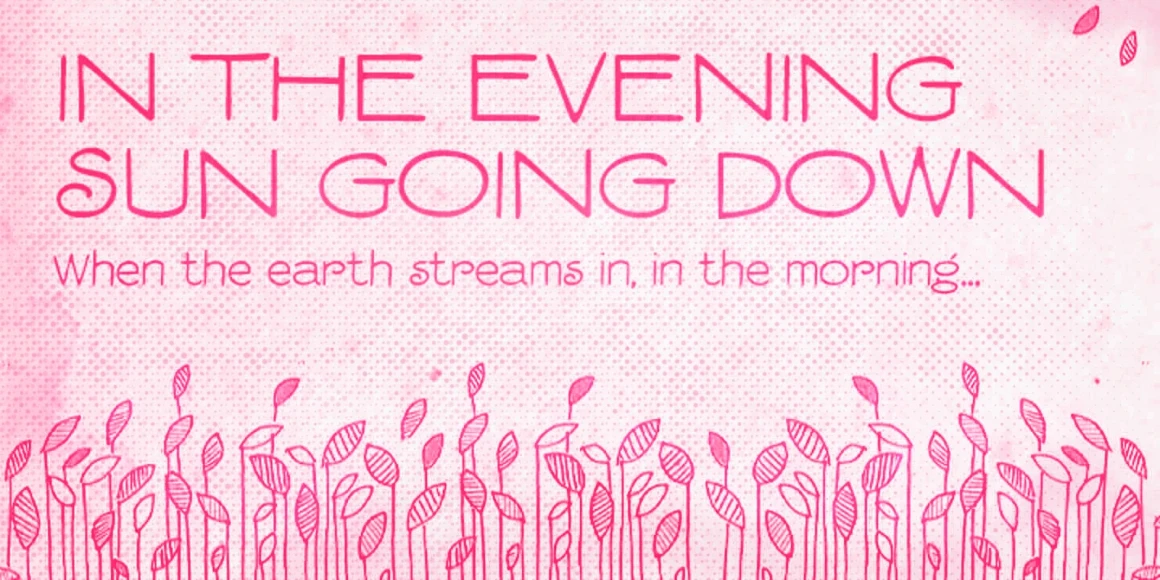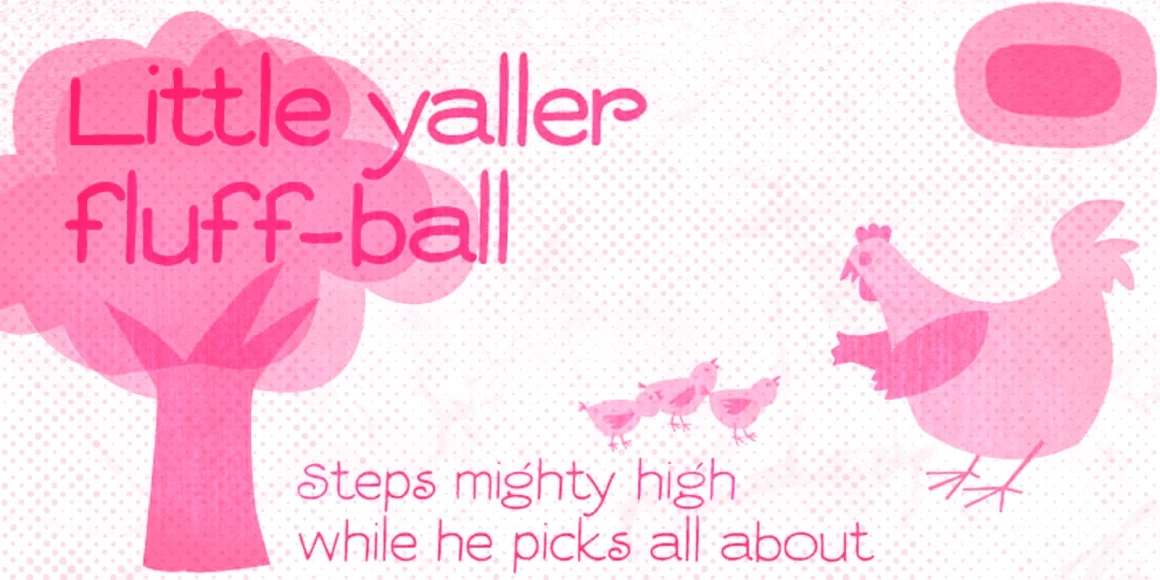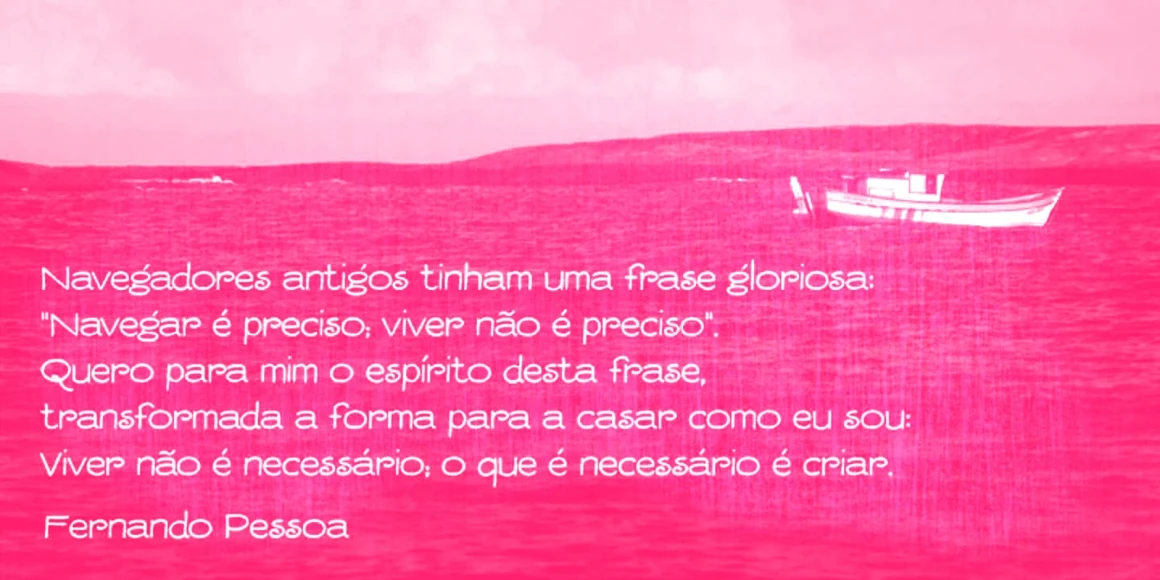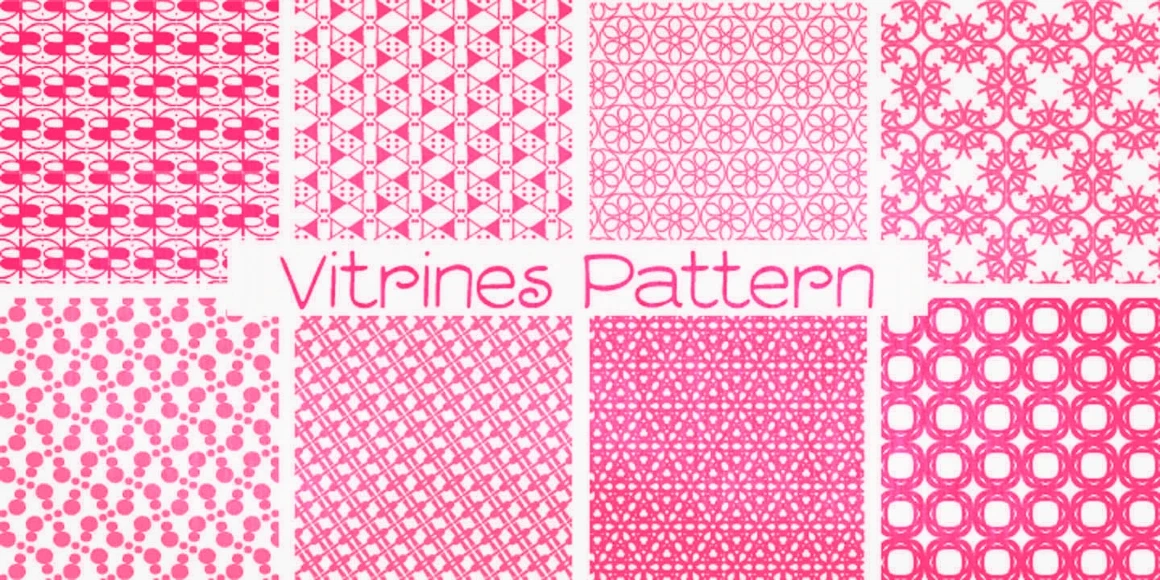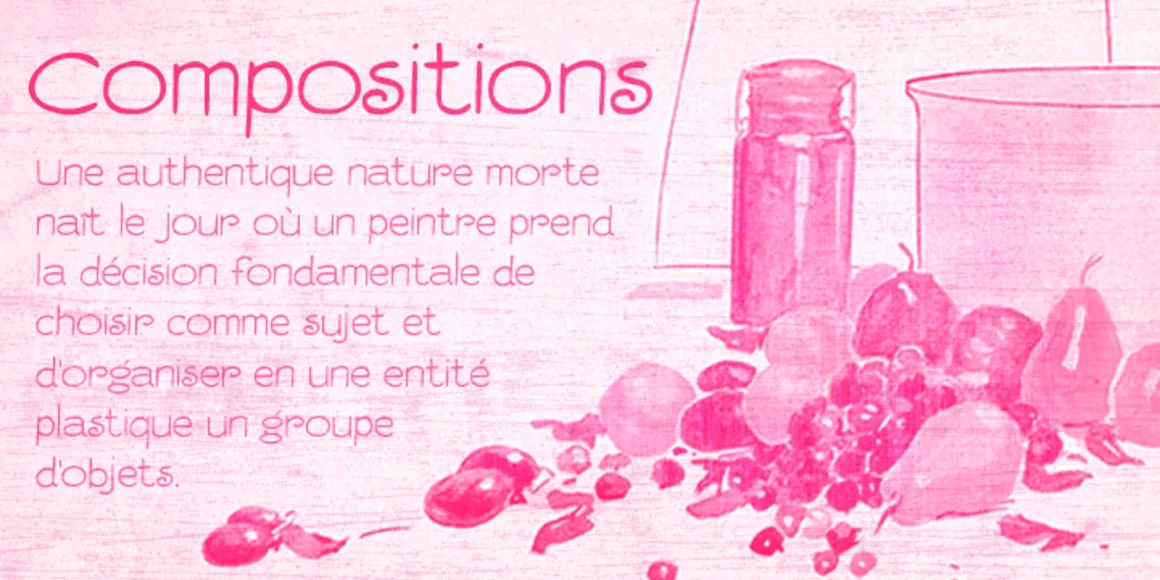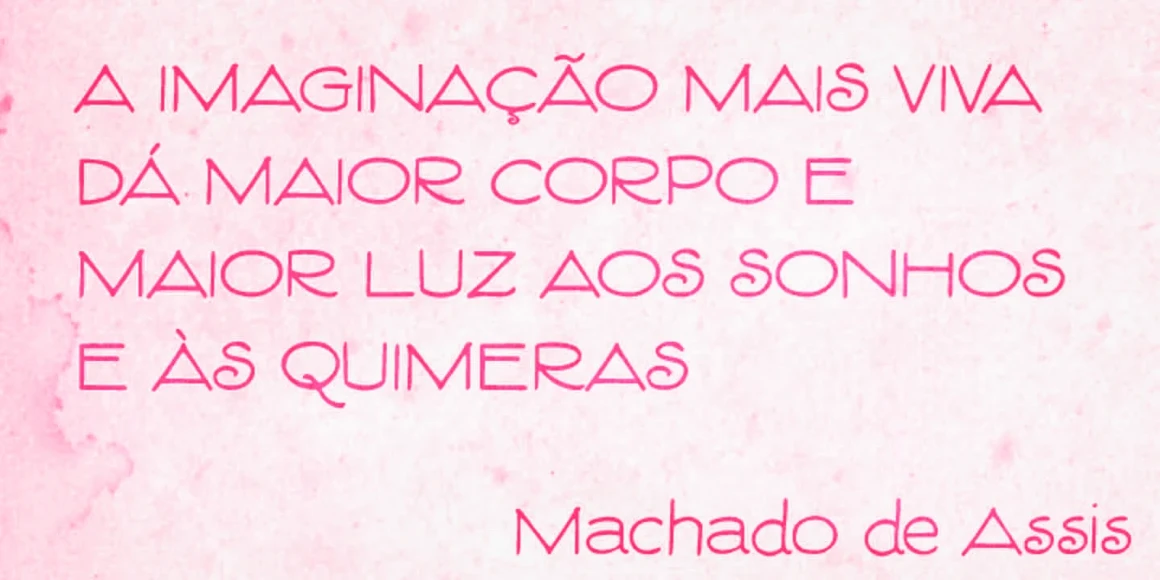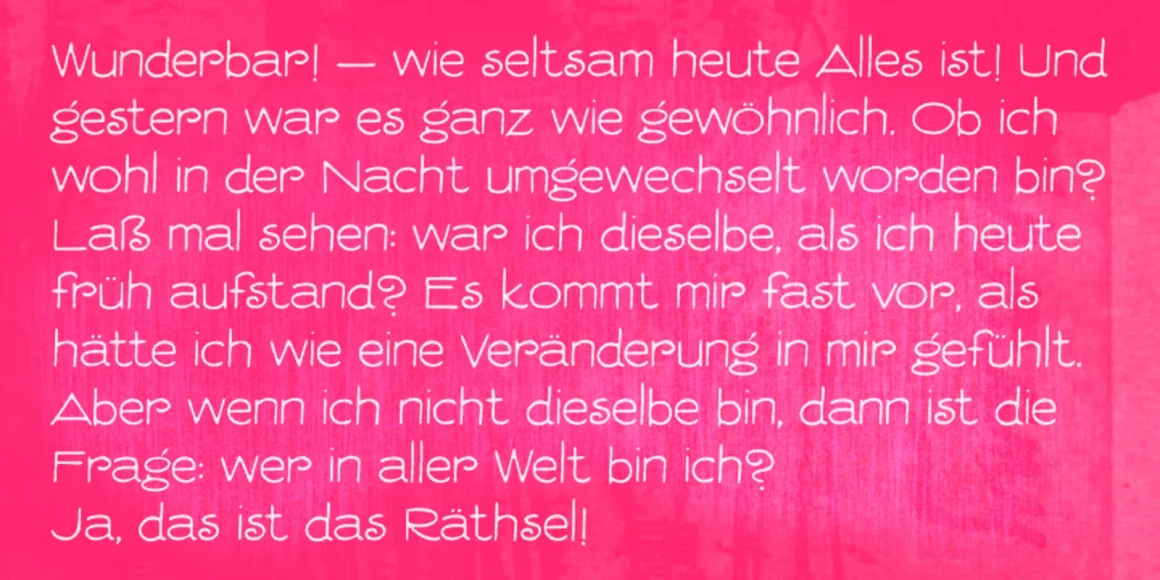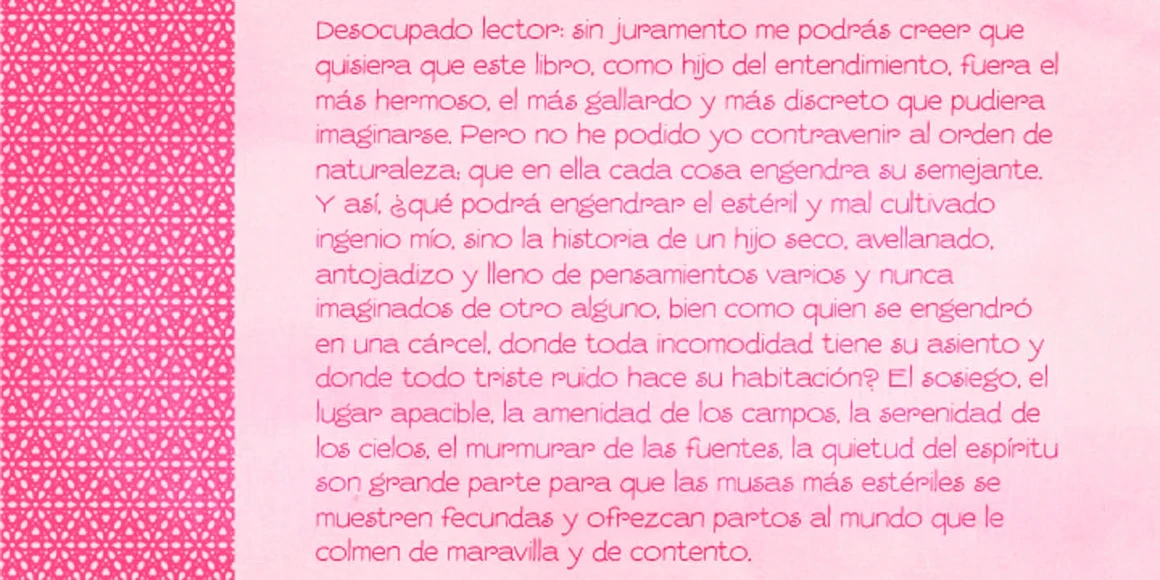
Vitrines
Vitrines is an informal hand-written sans. It is a version of a charming alphabet featured in a 1913 book devoted to window signs and show cards. This version was carefully developed to preserve the original hand-lettered look and feel. It includes a bold weight and a set of pattern tiles to create patterns and otherwise adorn your compositions. It is an excellent choice for architectural drawings, comic books, board games, film titles, and animations, among other uses.